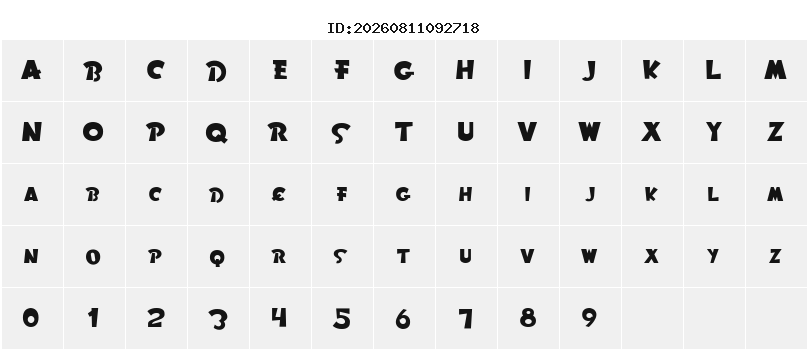
• Font Name: Rom
• Copyright: by Mario Arturo, Barcelona, Spain. Inspired on Rom CaffŽ logo. Aug 2001
• Manufacturer: by Mario Arturo, Barcelona, Spain. Inspired on Rom Caff logo. Aug
Rom.ttf is a modern, elegant sans-serif font designed for ultimate readability and visual harmony. Perfect for branding, headlines, web design, and print materials.